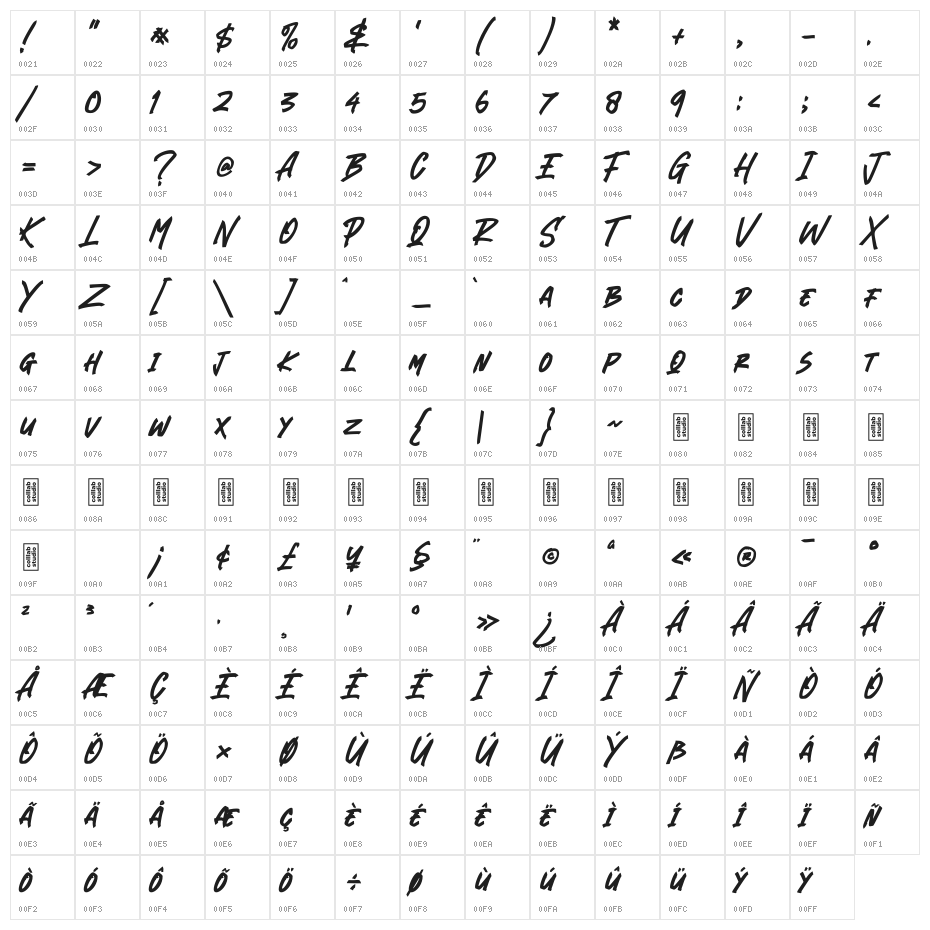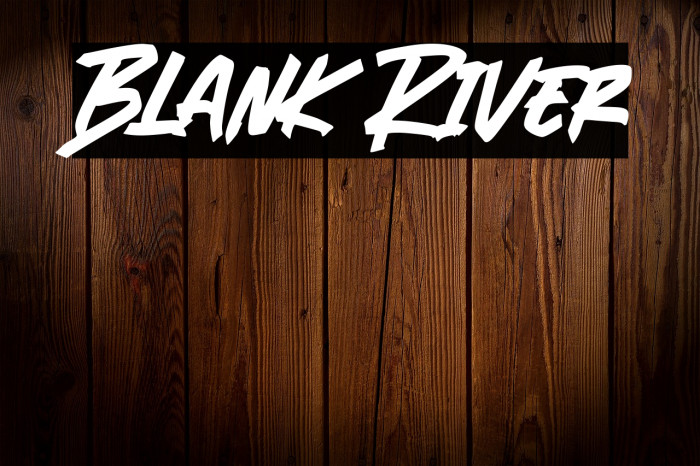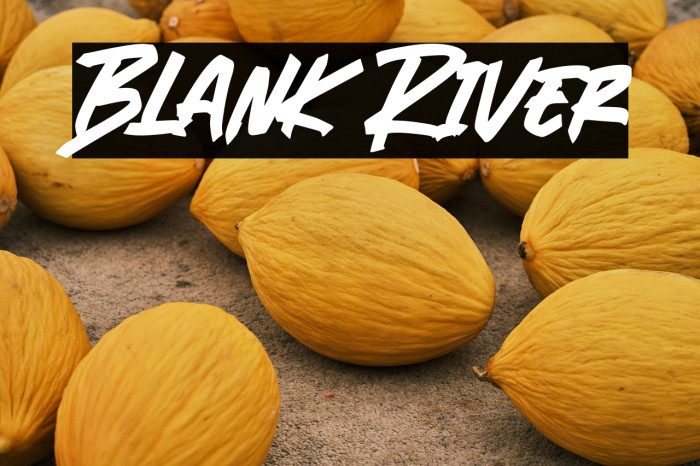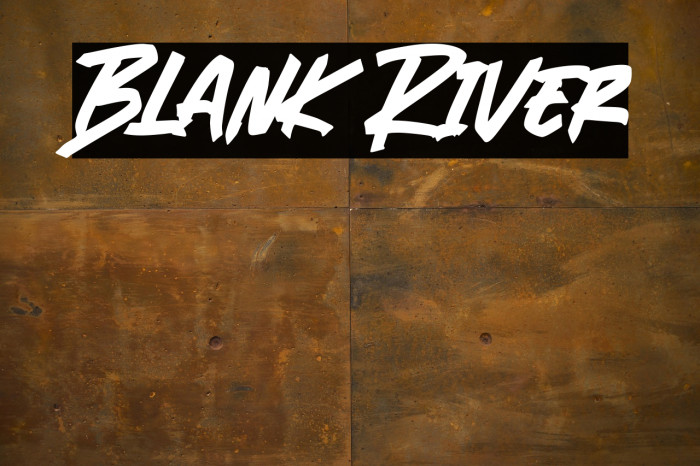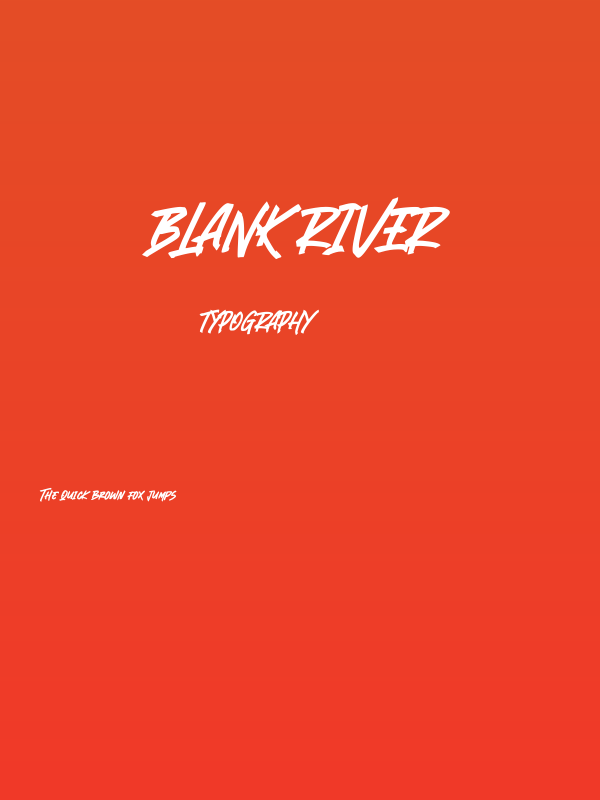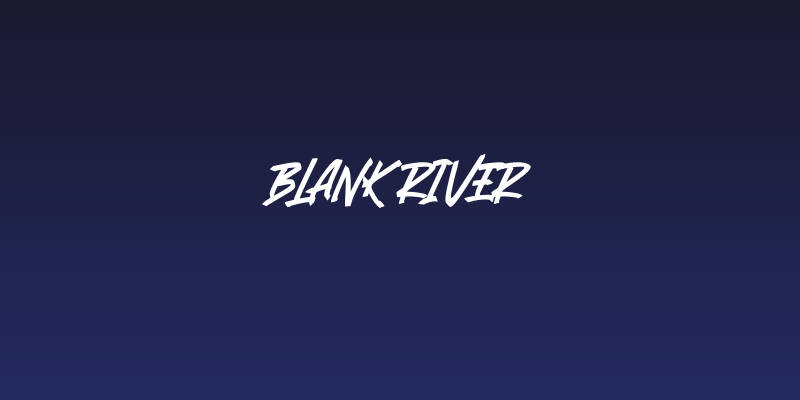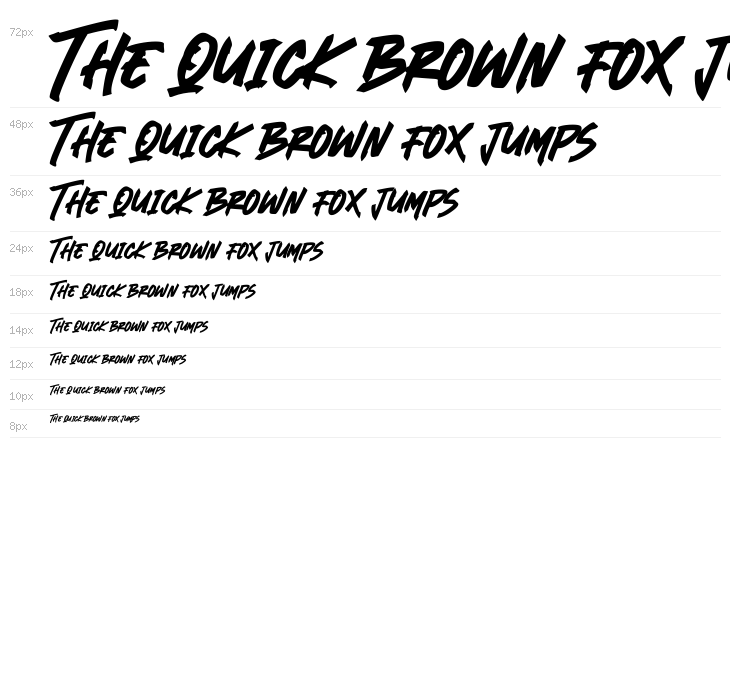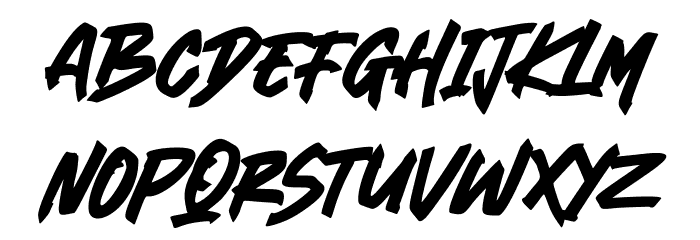
Blank River Font
Blank River Description
This font exudes a bold and dynamic energy, characterized by its thick, brush-like strokes that convey a sense of movement and urgency. The uppercase and lowercase letters maintain a consistent style, with sharp angles and a slightly slanted orientation, adding to its energetic appearance. The numerals and special characters follow the same stylistic approach, ensuring uniformity across all glyphs. The font's design is reminiscent of graffiti or street art, making it ideal for projects that require a bold and expressive touch. Its strong visual impact makes it suitable for headlines, posters, and branding materials that aim to capture attention and convey a sense of modernity and creativity.
| Proposed Projects | Ideal for street art-inspired designs, bold branding, eye-catching posters, and dynamic headlines. |